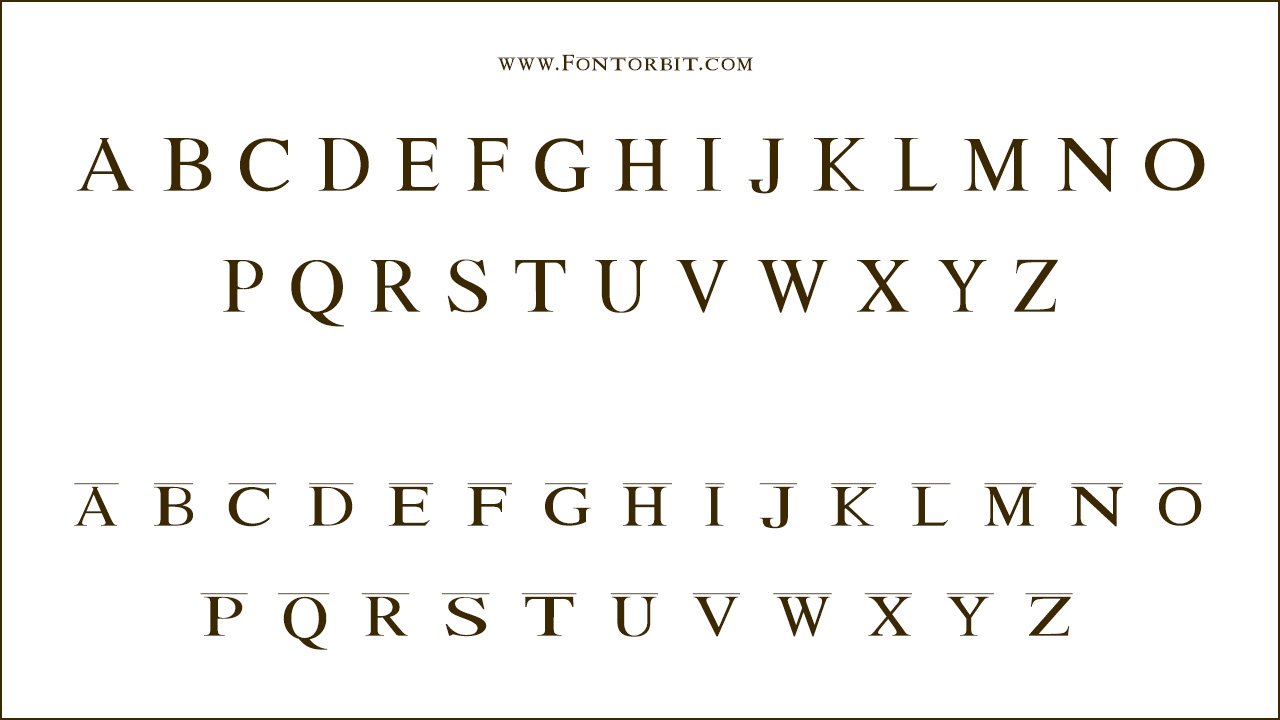
The iconic lettering inspires the “Lion King” font in the 1994 Disney movie “The Lion King.” The font style is a decorative serif with an African-inspired design; the developer is Melbys Magic.
While there isn’t an official release of the font used in the movie, several designers have created similar fonts that are available for free download. Some popular versions include “Lion King” by Melichor, among others.
Lion King Family Includes
The Lion King font family is relatively small but effective for its intended use. It typically includes:
a. Lion King Regular
b. Lion King Outline
These variations capture the essence of the original movie title’s design, offering both filled and outlined options.
Notable Uses Of Lion King Font
The Lion King font is often used in projects that seek to evoke the nostalgia and adventurous spirit of the movie. It’s popular in:
- Movie-themed posters
- Artwork
- Children’s party invitations
- Merchandise
- Memorabilia
- Fan art
- Tributes to the film
This font is best suited for display purposes rather than body text. It works well in large formats such as posters, headlines, logos, and banners. Its decorative style suits themed designs, especially those related to Africa, adventure, or Disney.
The Lion King font is a great choice for anyone looking to bring Disney magic to their designs. Its unique style makes it stand out, especially in projects that need a touch of adventure or nostalgia.
2.Who Designed The Lion King Font?
There isn’t an official designer for the movie’s font, but independent designers have created versions like “Lion King” by Melichor.
4.What Is The Best Use For The Lion King Font?
It’s best used for display purposes like posters, headlines, and themed designs.
5.Is There An Official Lion King Font?
No, there isn’t an official font release from Disney, but many close replicas exist.
6.What Style Of Font Is The Lion King Font?
It is a decorative serif with African-inspired design elements.
8.Does The Lion King Font Include Different Weights?
Most versions include at least a regular and outline version.